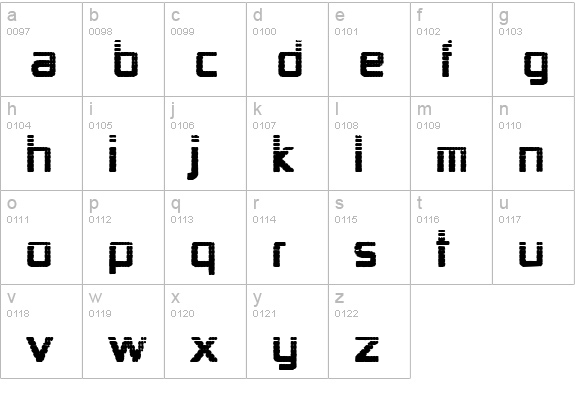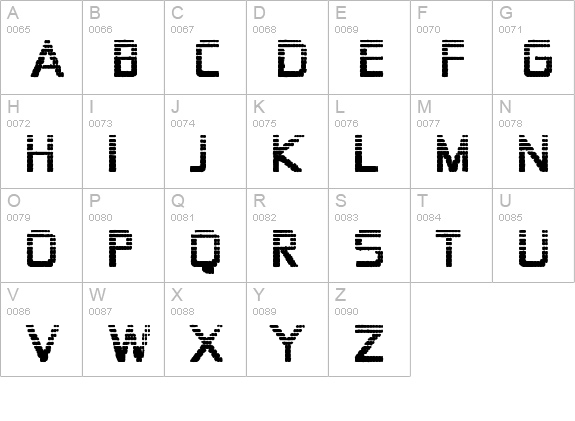
Zekton Dots Font Details
Zekton Dots font is a modern and stylish typeface that adds a unique touch to any design project. With its geometric shapes and dotted patterns, this font exudes a sense of sophistication and creativity. Perfect for branding, logos, posters, and more, Zekton Dots font will make your text stand out in a crowd. What's even better is that Zekton Dots font is available for free download at FontsMarket.com. So you can start using this eye-catching font in your projects without any cost. Don't miss out on this opportunity to enhance your designs with the striking Zekton Dots font today!